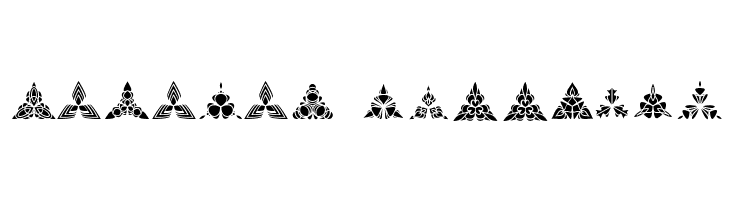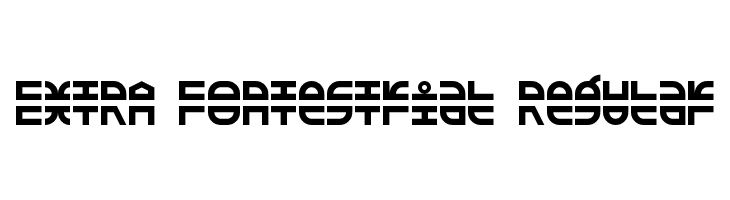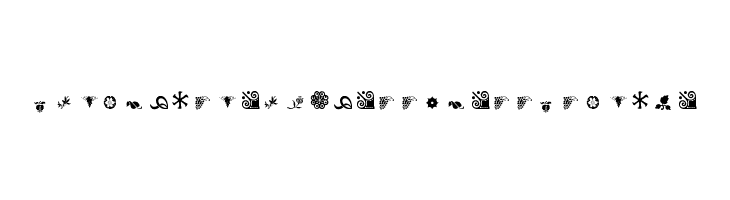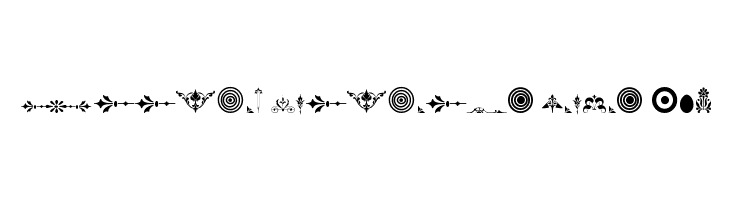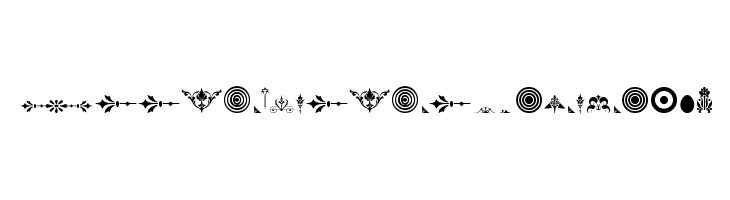
Ornamental, decorative glyph set with geometric and floral motifs.
A bold, geometric font with a futuristic and modern design.
A bold, futuristic font with geometric shapes and strong lines.
A modern, artistic font with sharp, angular strokes and high contrast.
Ornamental font with intricate, triangular patterned glyphs.